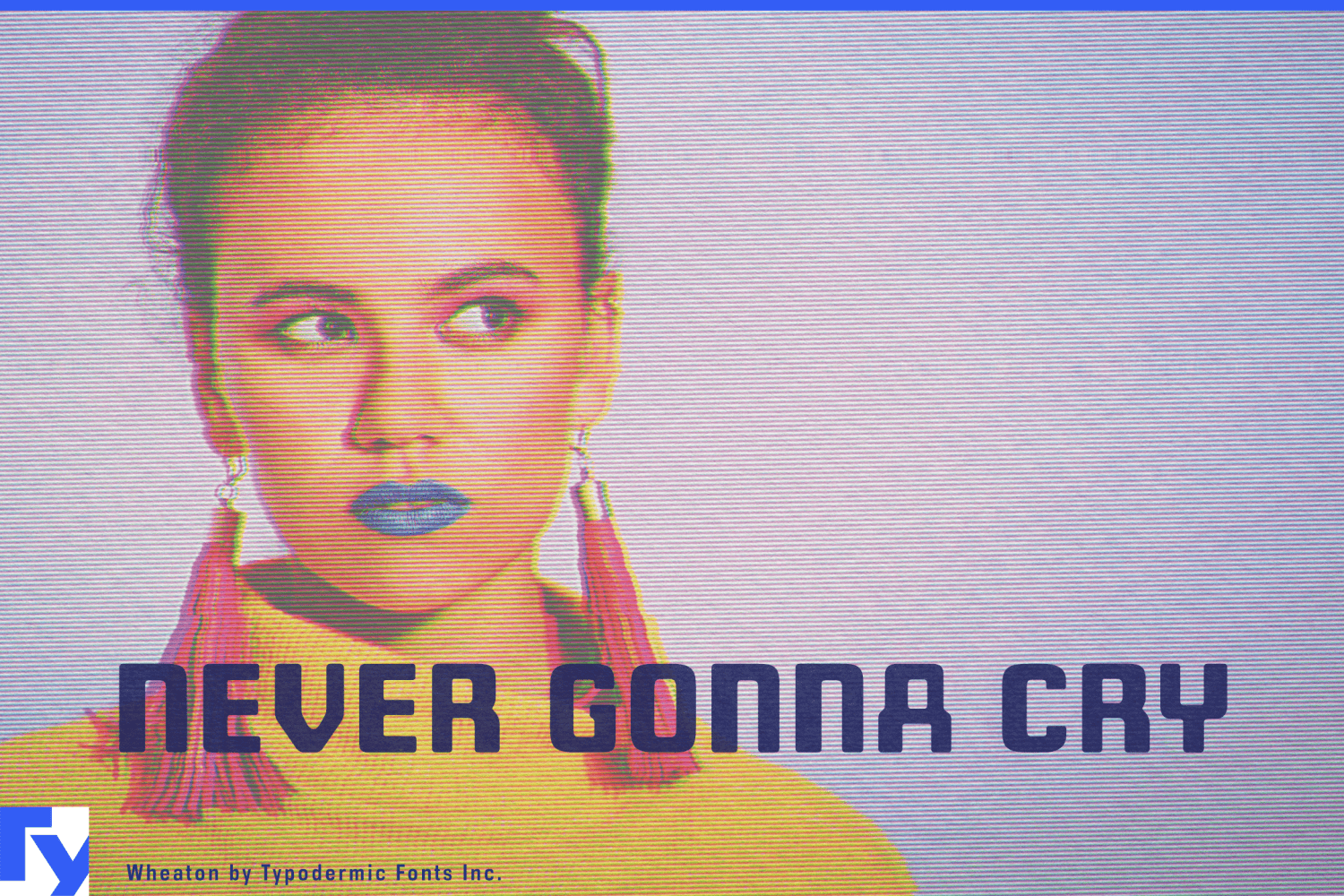
About Wheaton
Step into the typographic time machine with Wheaton—a headline font that bridges the gap between retro charm and futuristic flair. This robust typeface teleports your message across decades, fusing the electronic aesthetics of the 1980s with the…